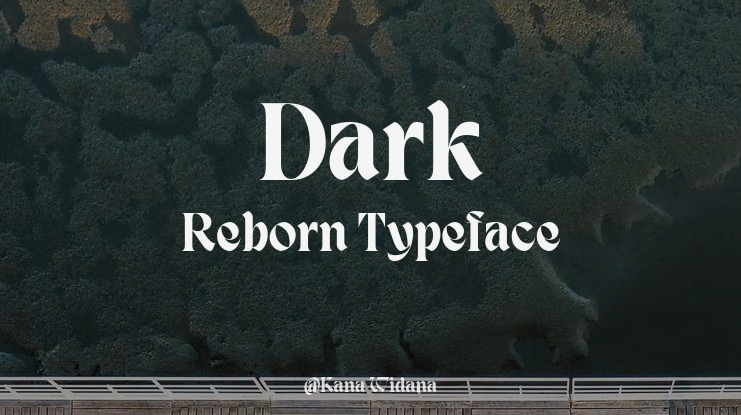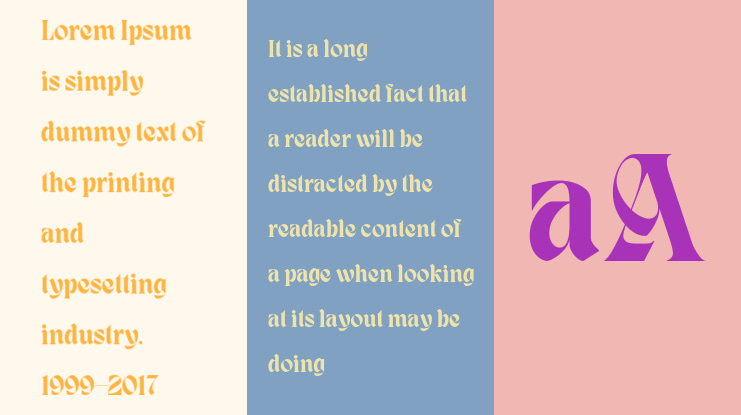
Dark Reborn Typeface
A Bold Fusion of Gothic Heritage and Modern Elegance
Unleash a new era of typographic artistry with Dark Reborn—a typeface where tradition meets transformation. Designed by Alit Design Studio and forged in the aesthetic crucible of Gothic calligraphy, Dark Reborn is a bold serif-Blackletter hybrid that dares to defy convention.
This typeface is more than just a font—it is a visual language of power, pride, and dark beauty.